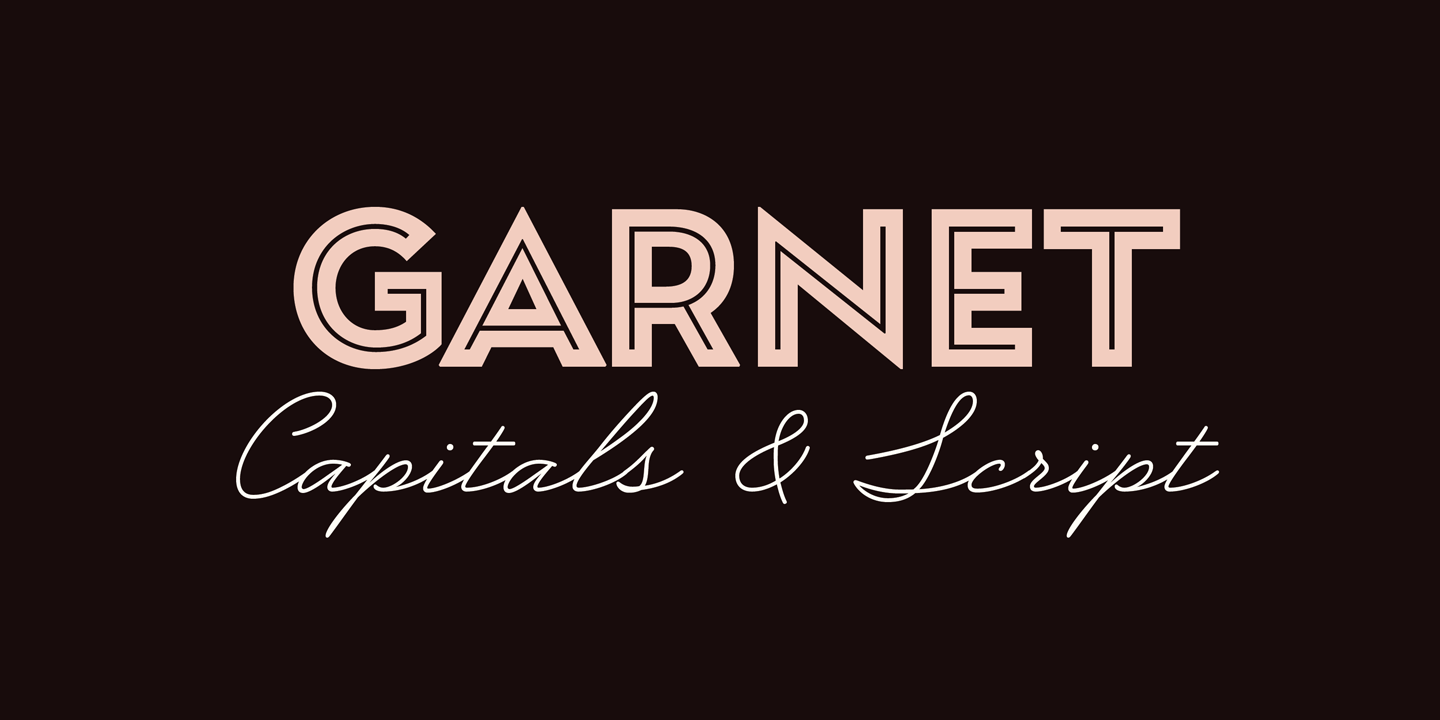
Garnet Font excels in various design applications including jewelry branding, luxury fashion magazines, gemstone company logos, precious metal packaging, elegant wedding invitations, high-end beauty products, sophisticated wine labels, and premium brand identities. This precious typeface adapts magnificently to both luxurious digital platforms and refined print materials, making it perfect for designers seeking gemstone elegance and precious sophistication in their visual communications.
Garnet Font generates excitement among design professionals due to its precious character and gemstone-inspired styling that instantly conveys luxury and rare beauty. The font's crystalline letterforms and jewel-like proportions create an immediate sense of preciousness and sophisticated elegance. Its gemstone personality makes it particularly appealing for brands wanting to communicate luxury, rarity, and precious quality in their visual identity.
The Garnet Font family encompasses multiple weights and styles including Regular, Bold, Light, Brilliant, and Faceted variations. Each family member maintains precious design principles while offering distinct gemstone characteristics. The Light weight provides delicate precious elegance for sophisticated applications, while the Brilliant version delivers sparkling impact for luxury headlines and premium brand statements.
Luxury designers frequently choose Garnet Font Free Download for projects requiring both precious authenticity and brand distinction. This typeface demonstrates exceptional effectiveness across luxury industries including jewelry stores, high-end fashion, premium cosmetics, and exclusive brands. Its precious character allows organizations to communicate luxury while maintaining excellent readability and gemstone visual appeal that reflects the beauty and value of precious stones and sophisticated craftsmanship.